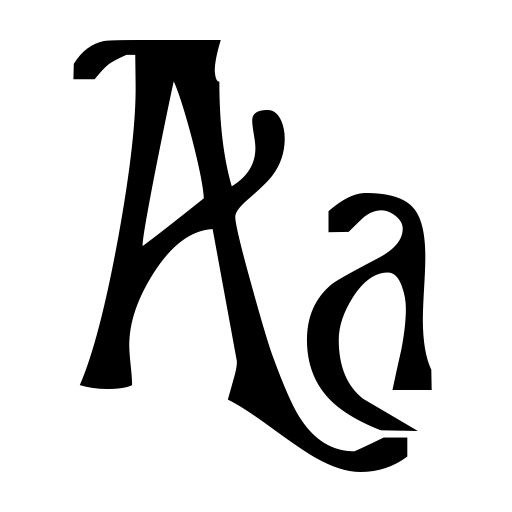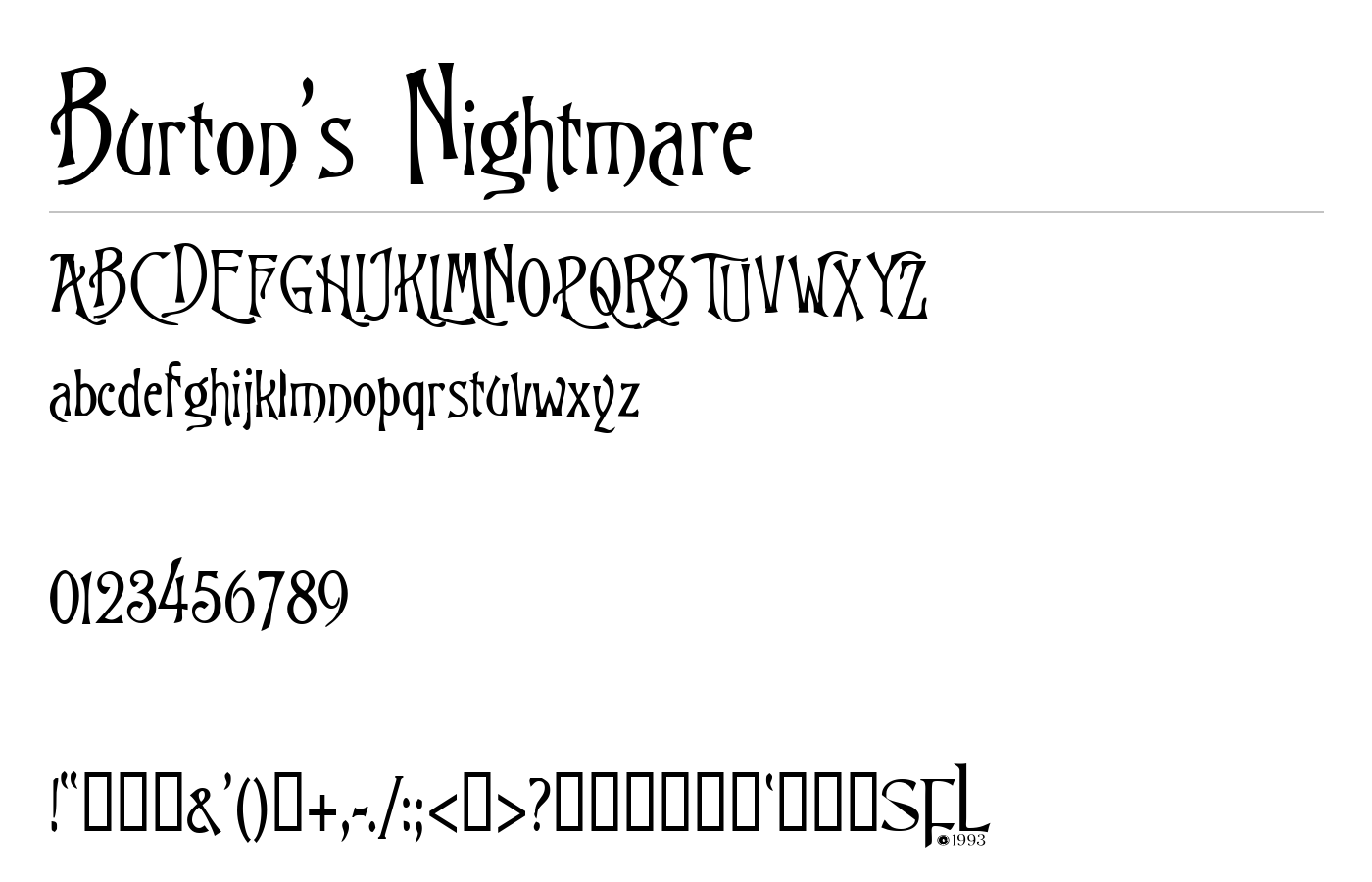
Burton's Nightmare is a decorative serif font with a spooky, gothic vibe, featuring irregular and whimsical letterforms that create a sense of eerie playfulness. Its sharp stroke contrasts and unique, twisted shapes make it perfect for Halloween themes, horror branding, or any design that needs a quirky, haunting atmosphere. This font works best in headlines, posters, or themed packaging where a dramatic, eye-catching style is desired.
Burton's Nightmare Font